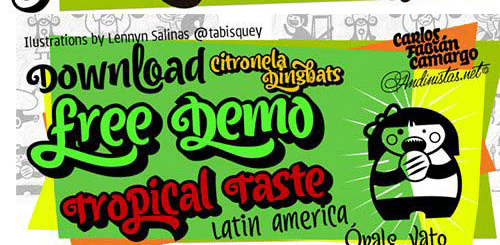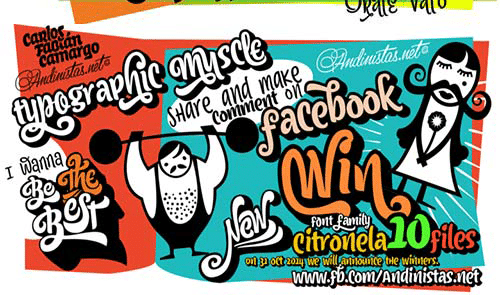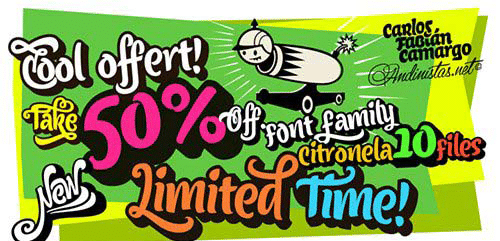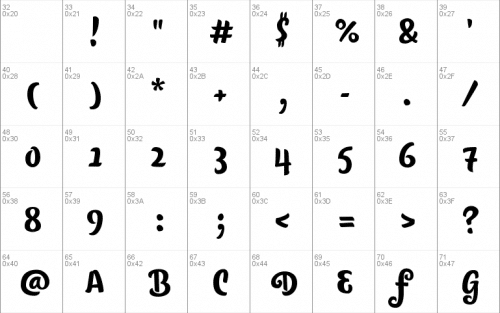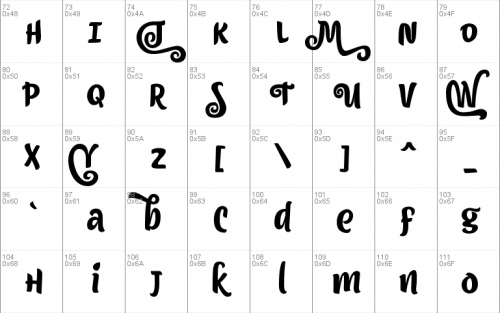
Citronela is a font family designed by Carlos Fabián Camargo G. The bubbly character of citronela was born during the design process of flaminia and Naturalia fonts. The multiple alternative letters of citronela allow us to create exuberant logos, phrases and expressive writing with imaginative and tropical flavor.
Citronella is ideal for sensations pleasing, recreational or artistic issues. You can use it in labels of organic products as well as posters and notices of a brand of syrup, meringue, pudding or chantilly cream. Citronella would be ideal in a logo for a Caribbean hotel or a phrase written in a cap, key chains and selling points material. Highly emphasize atmospheres of graphic design that need writing with alternative letters and suggestive swashes. Its empty and full areas are opposed to the serious and formal as his brilliant and sensitive random motion generate fun and creative ideas.